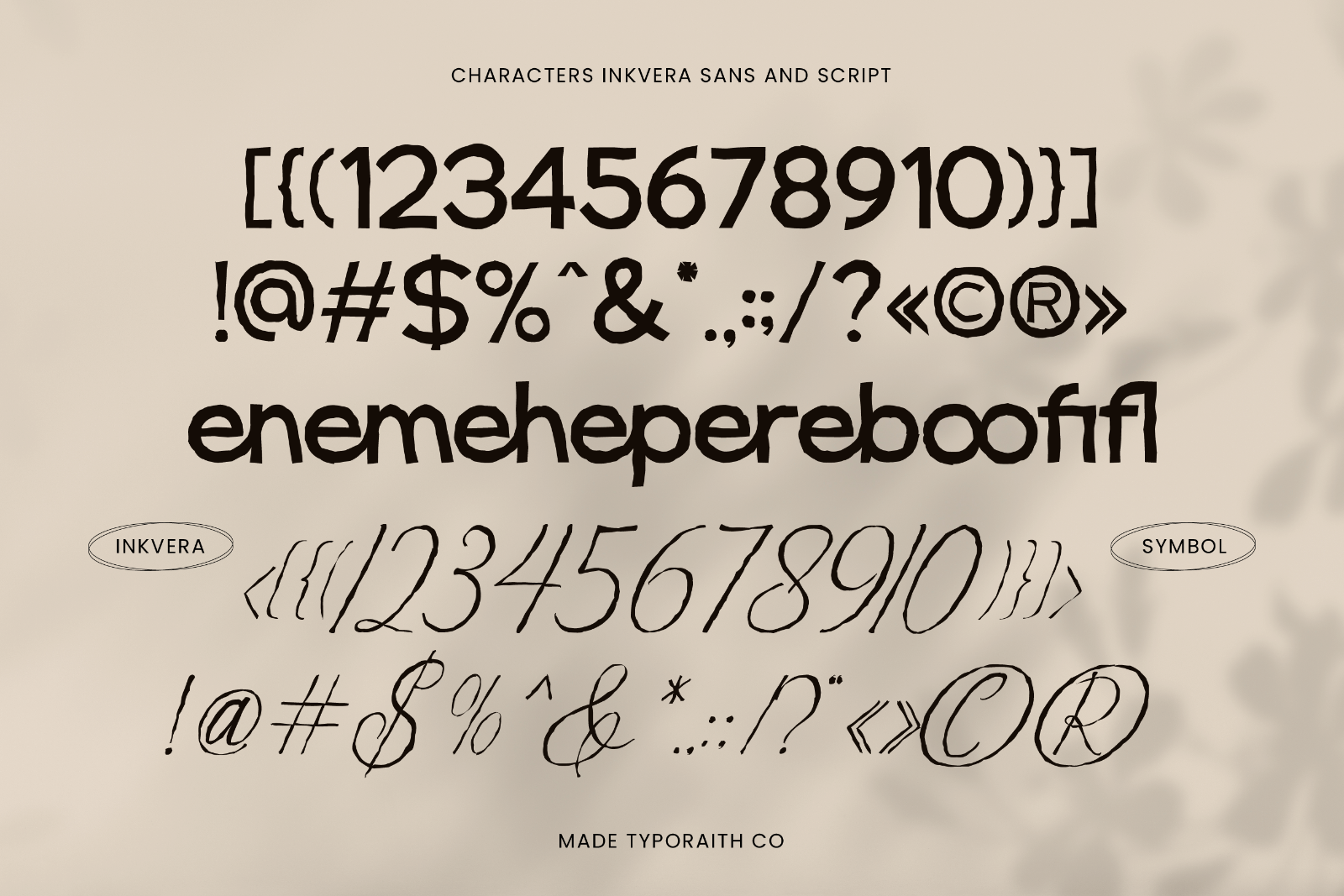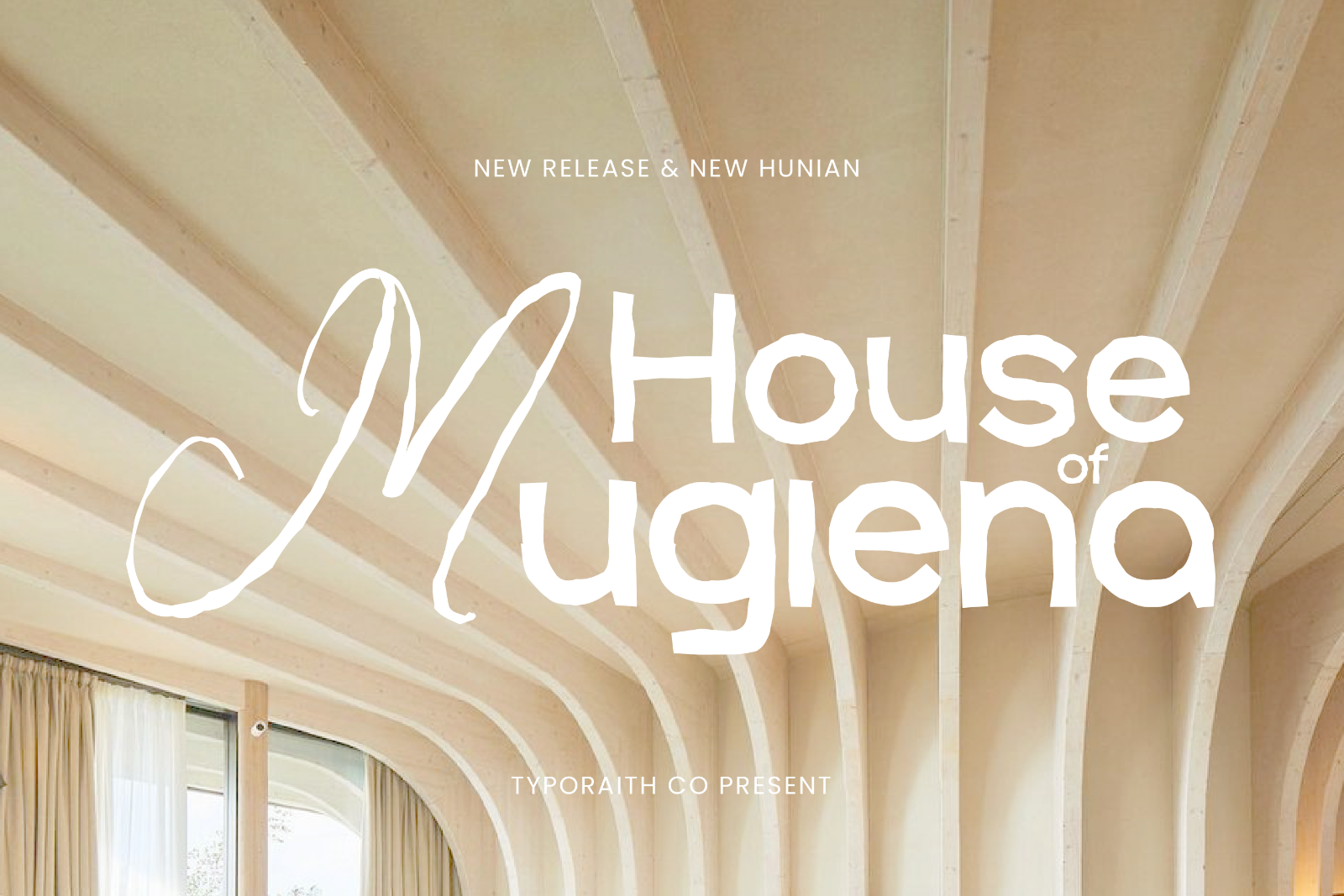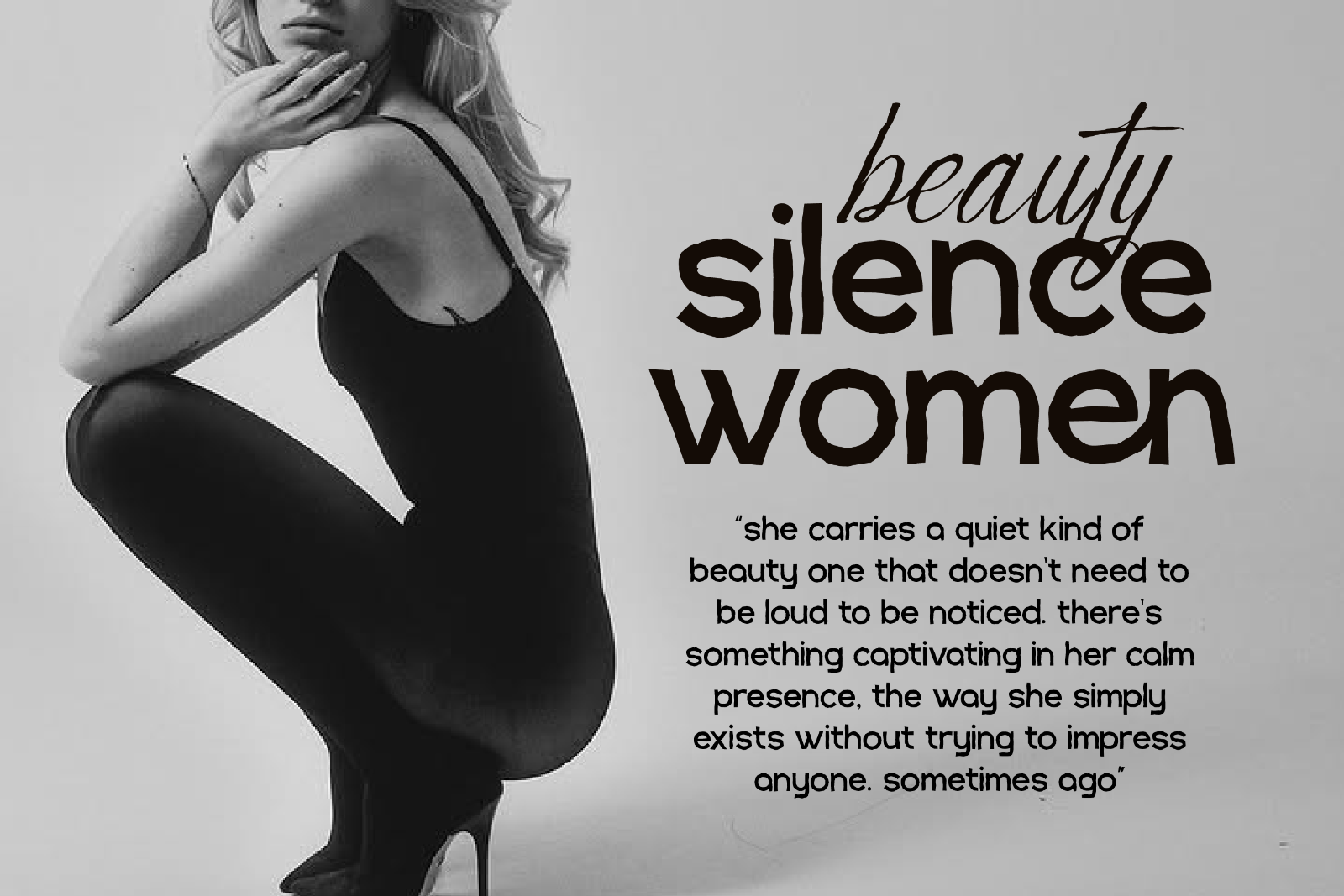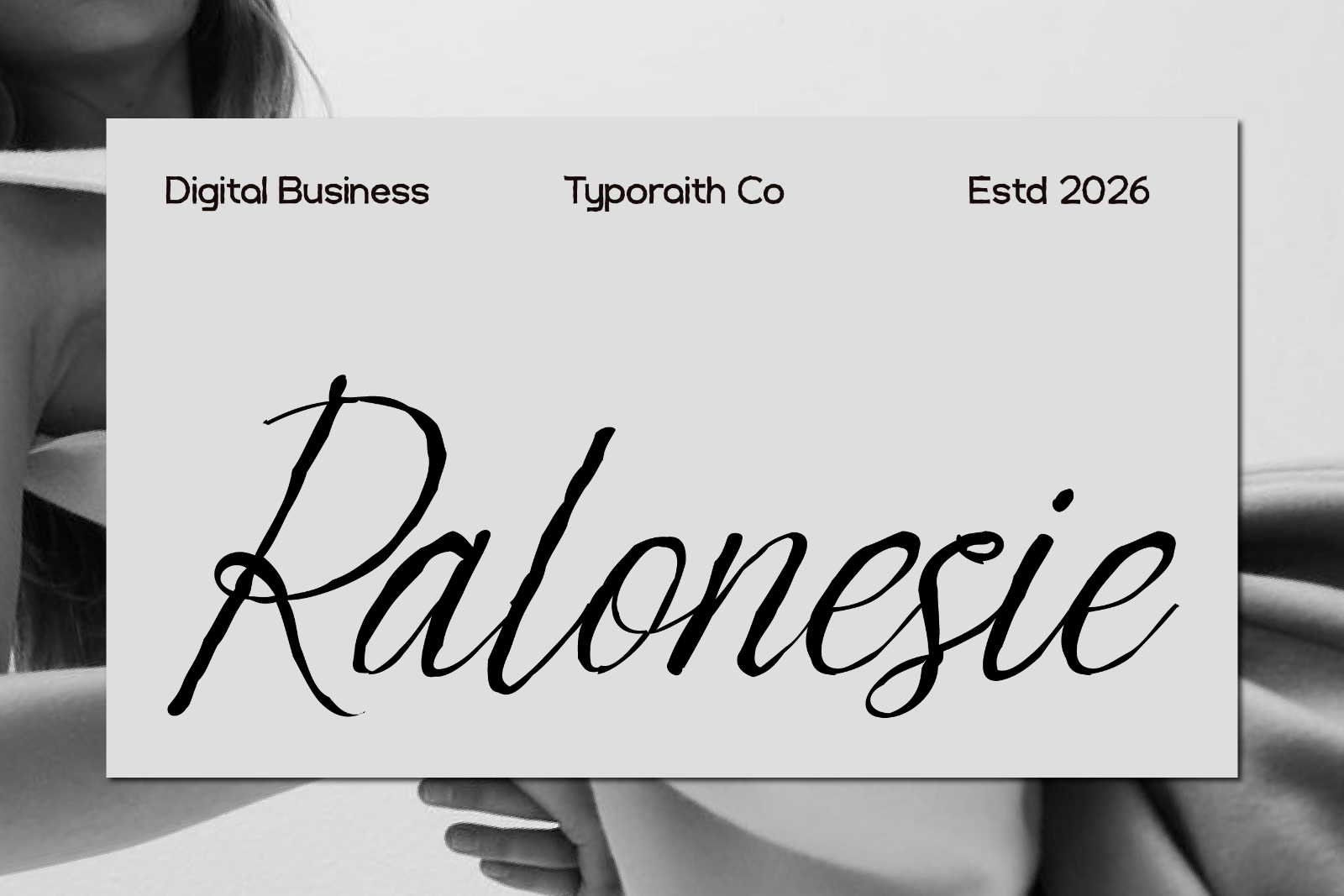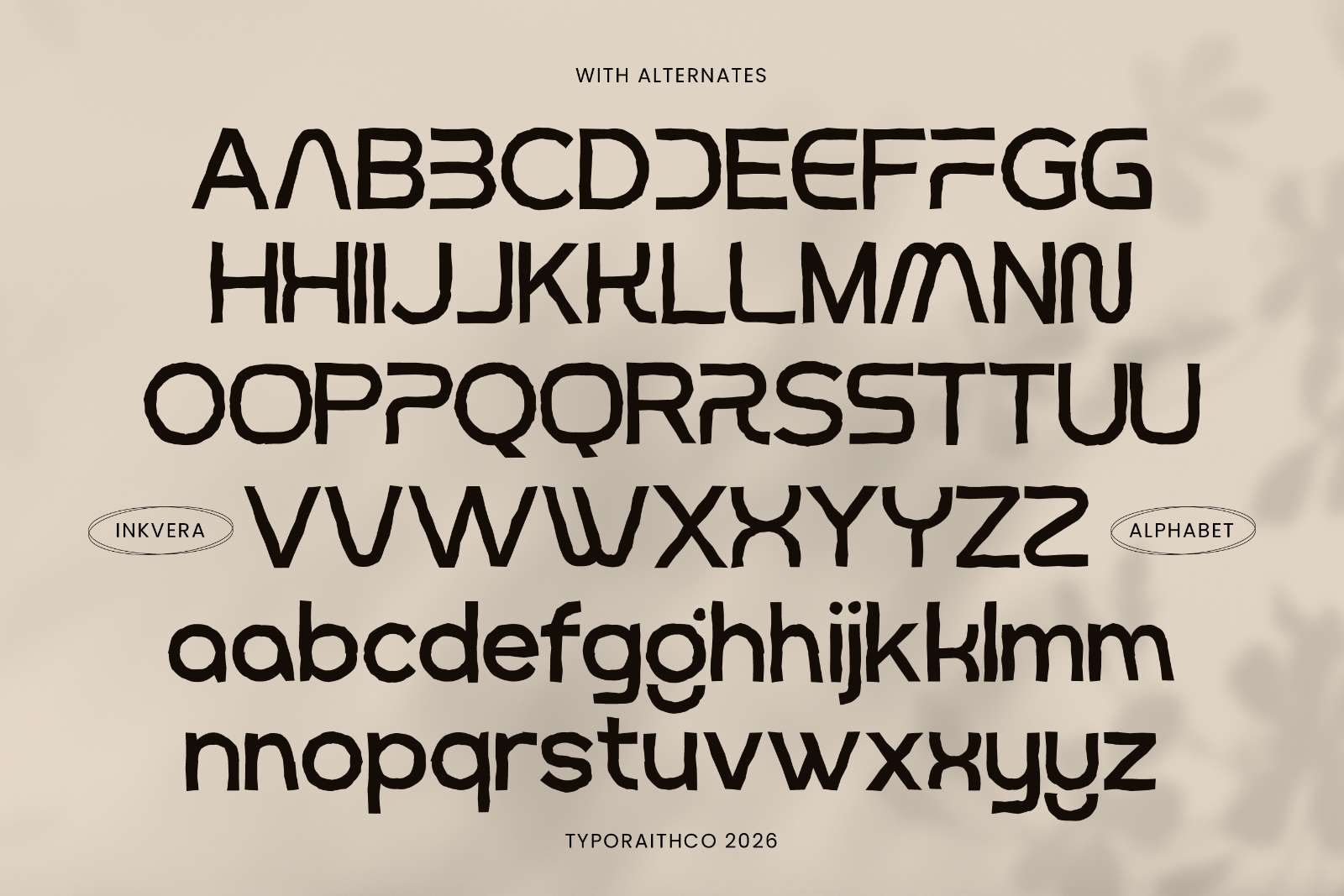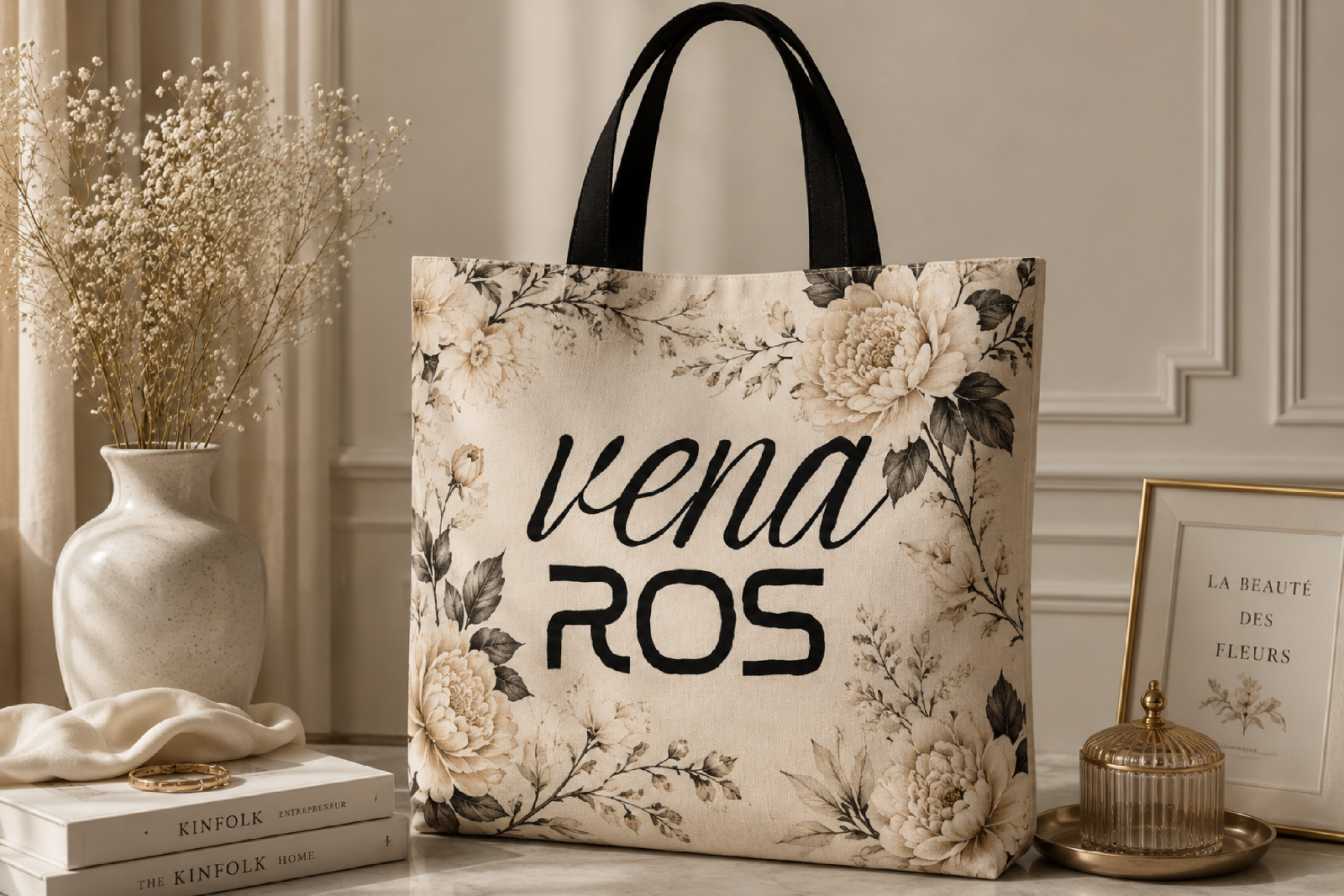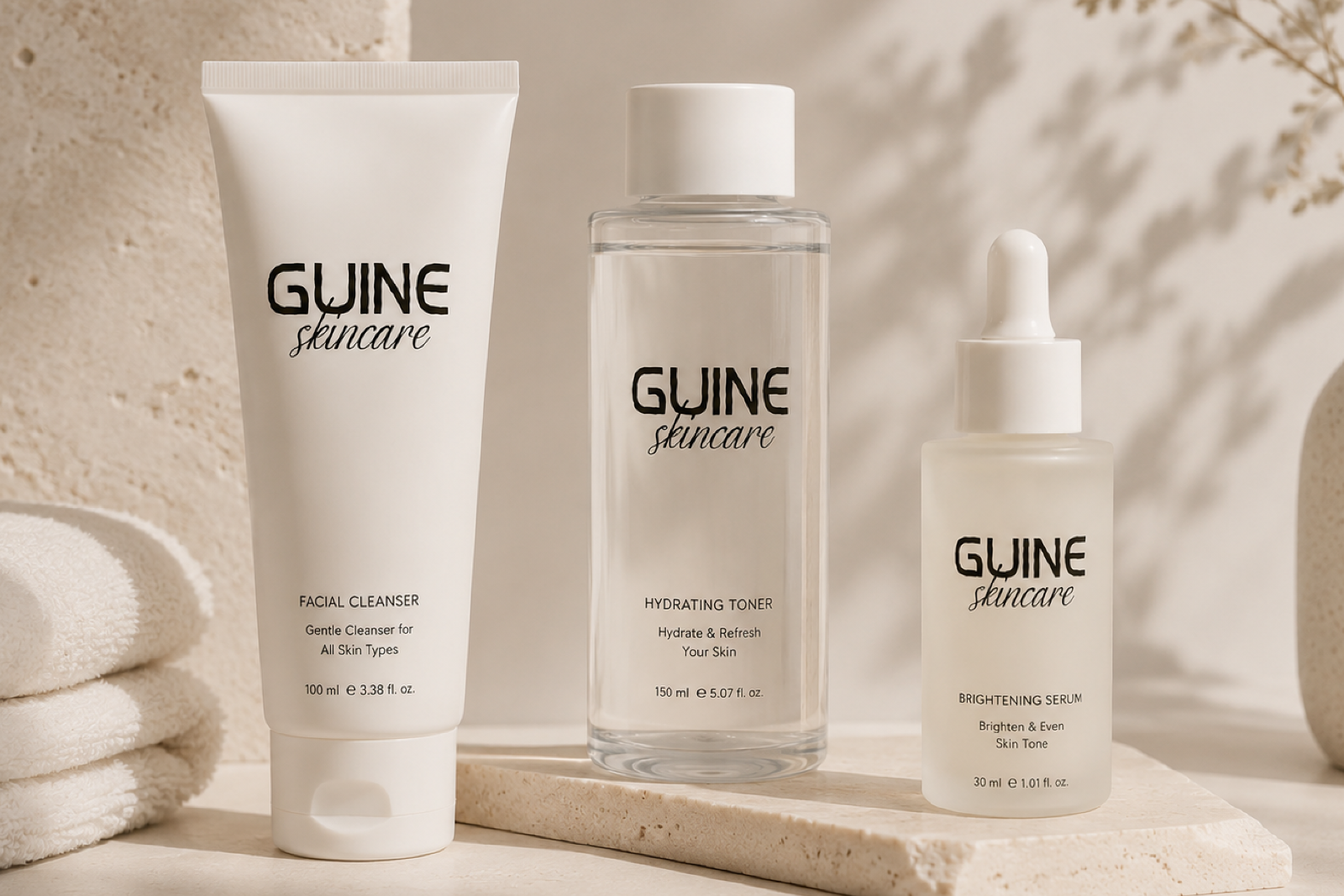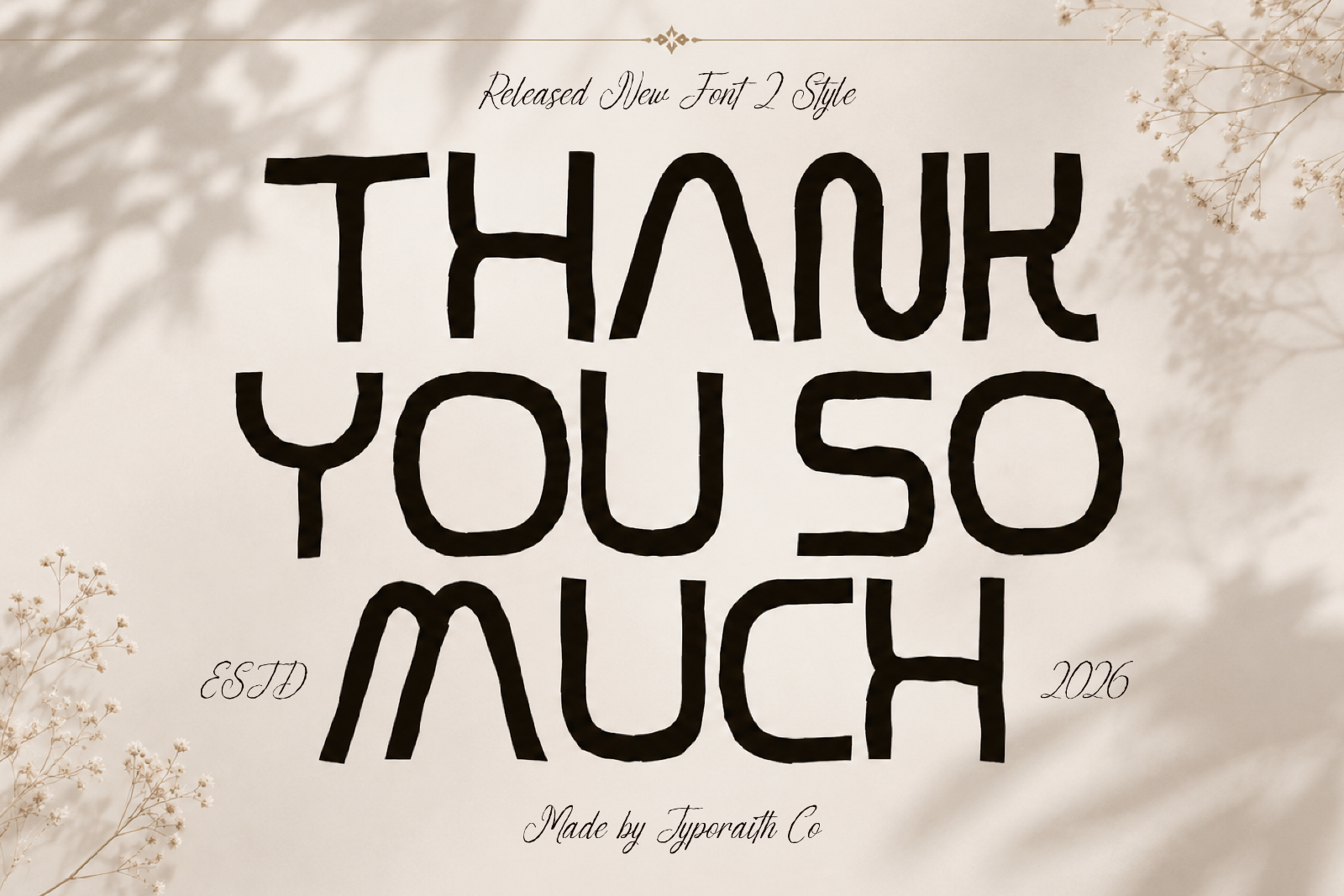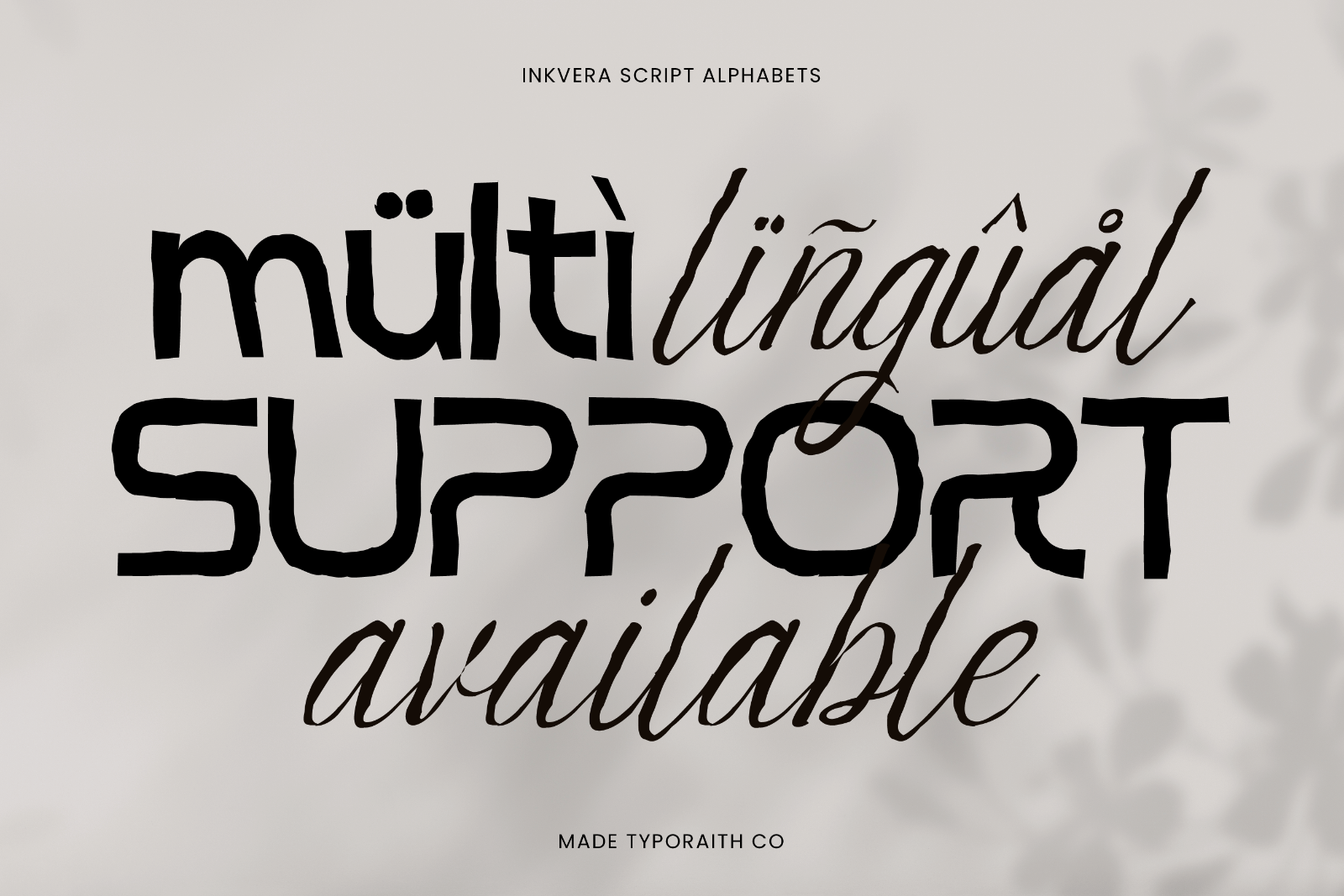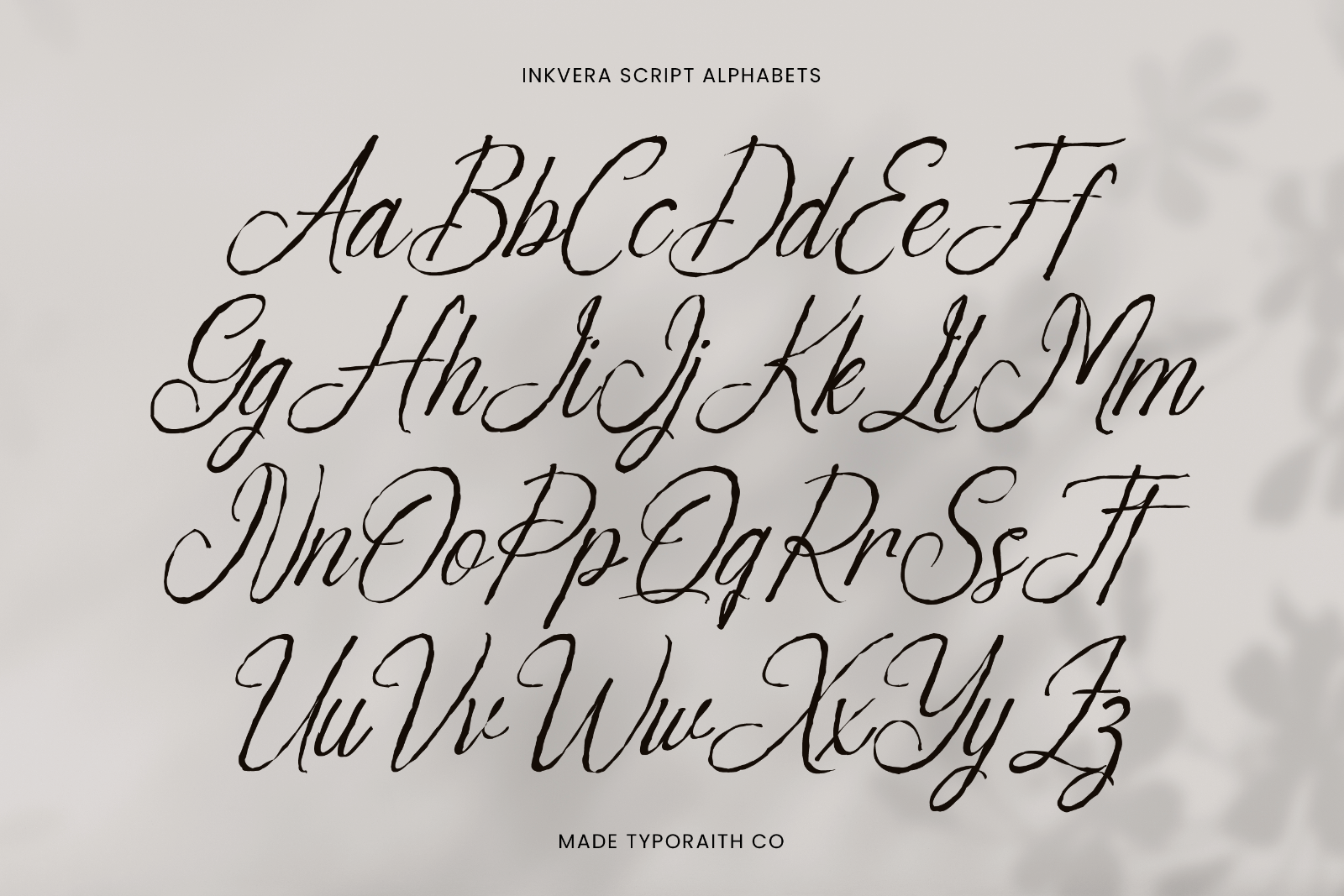
Inkvera is a modern textured font duo that combines a bold handcrafted sans with an elegant flowing script, creating the perfect balance between strong character and natural sophistication. Designed with subtle rough details and organic strokes, Inkvera brings a unique handmade feel to every design.
This versatile font duo is ideal for branding projects, logo design, packaging, wedding invitations, social media graphics, posters, editorial layouts, and stylish merchandise. The contrast between the bold uppercase style and the graceful script allows you to create eye-catching typography with ease.
Whether you're building a modern brand identity or adding an artistic touch to your work, Inkvera delivers warmth, personality, and timeless appeal.